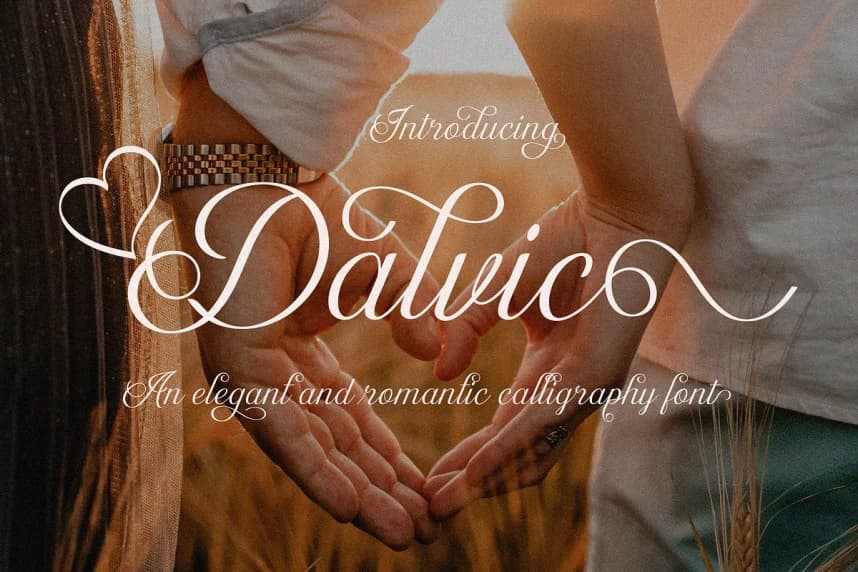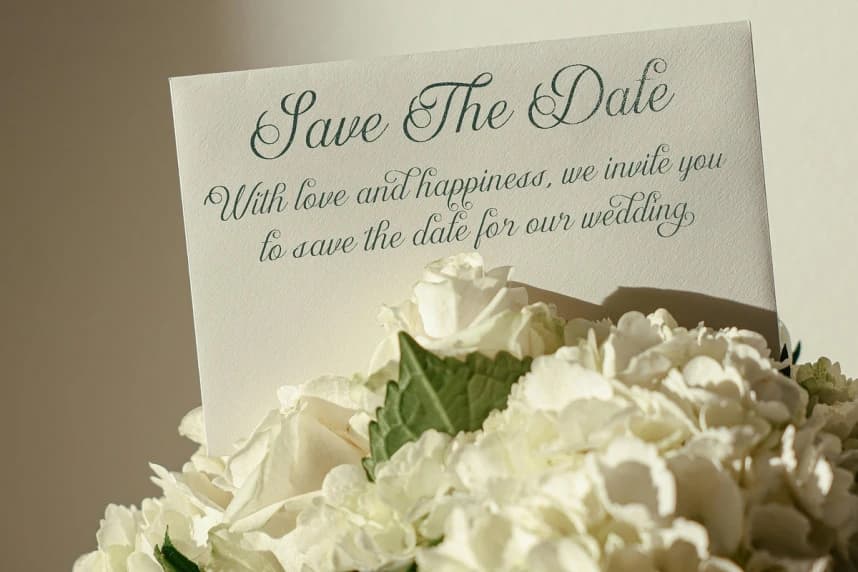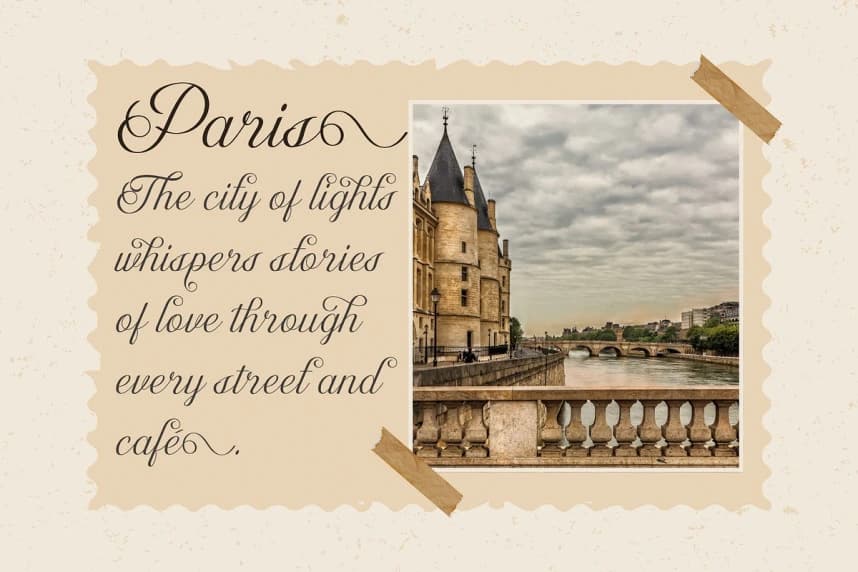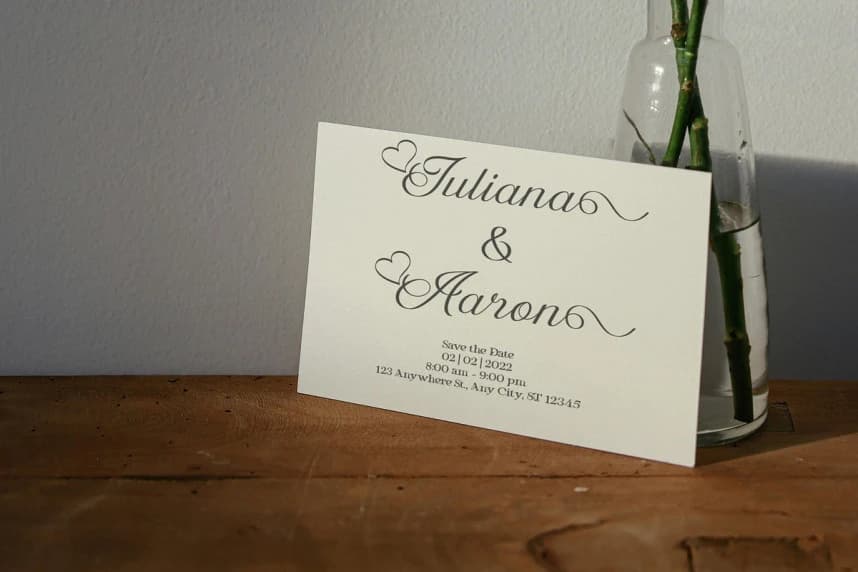
Dalvic Font
Dalvic Font is an elegant and romantic calligraphy font designed with graceful curves and luxurious swashes. Its flowing strokes and delicate details make every word feel special and expressive. Perfect for wedding invitations, branding projects